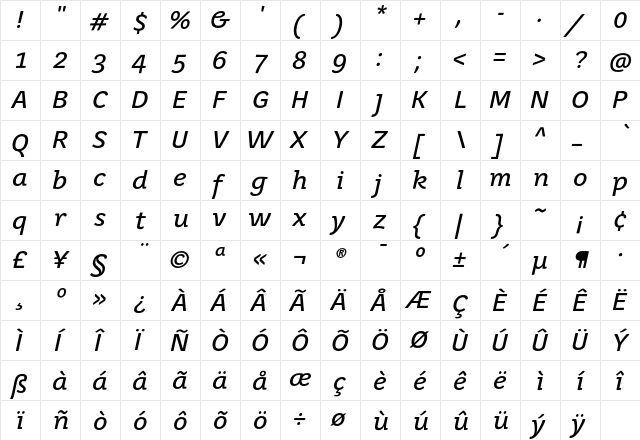
Juvenis Text Italic
| Foundry | Josef Tyfa, Frantisek Storm,https://www.stormtype.com |
Design Context for Juvenis Text Typeface
Juvenis Text takes a measured approach to typography — its balanced proportions and neutral character make it a reliable workhorse for both digital and print work. The dynamic lean of this cut emphasises speed and emphasis in any layout.
Pro Tip: Use Juvenis Text for emphasis, pull quotes, and subheadings where its slanted energy can add rhythm to the layout.